I have curated best of 6 Punjabi Gurmukhi Fonts for Indian (punjabi) Graphic Designers. These fonts are mostly used in Book Cover designs for Punjabi Writers.
If you’re looking to download punjabi fonts for your design projects, you’ve come to the right place! Many designers often search for punjabi font style download options but struggle to find quality typefaces that maintain the authentic Gurmukhi script beauty. Whether you need fonts for book covers, posters, or digital designs, having the right punjabi font name can make all the differnce in your creative work.
The fonts listed above are carefully selected to give your projects that profesional touch while preserving the cultural essence of Punjabi typography.
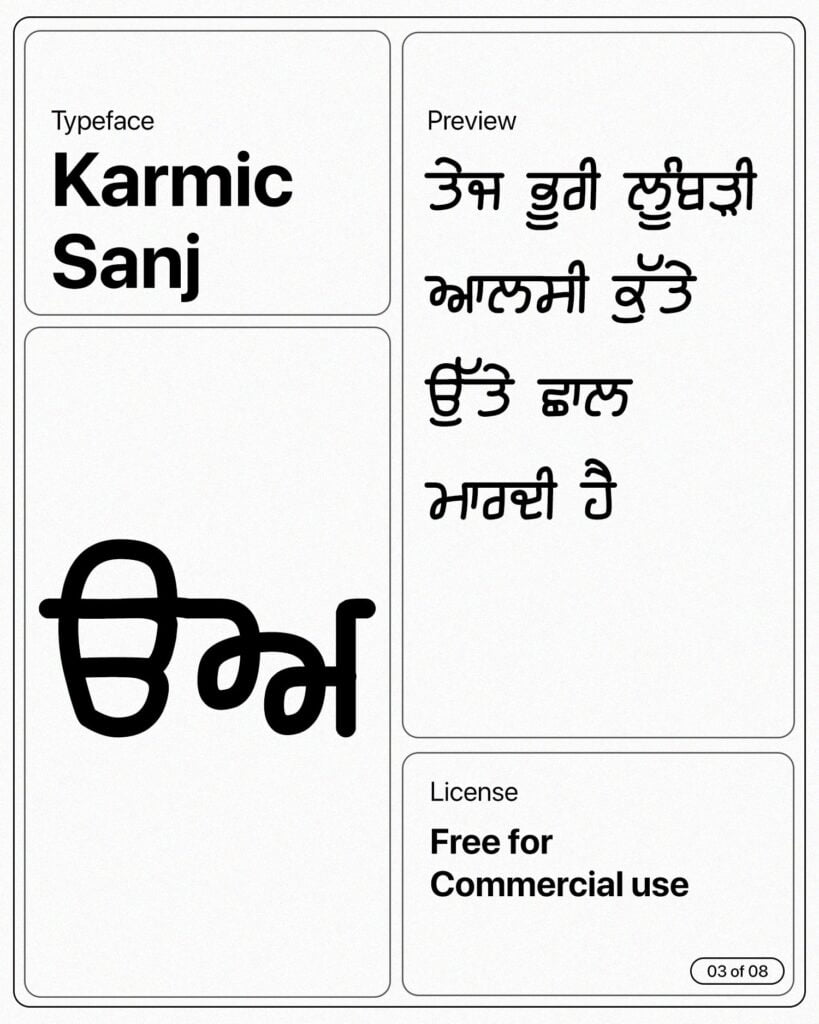
Karmic Sanj Punjabi Font
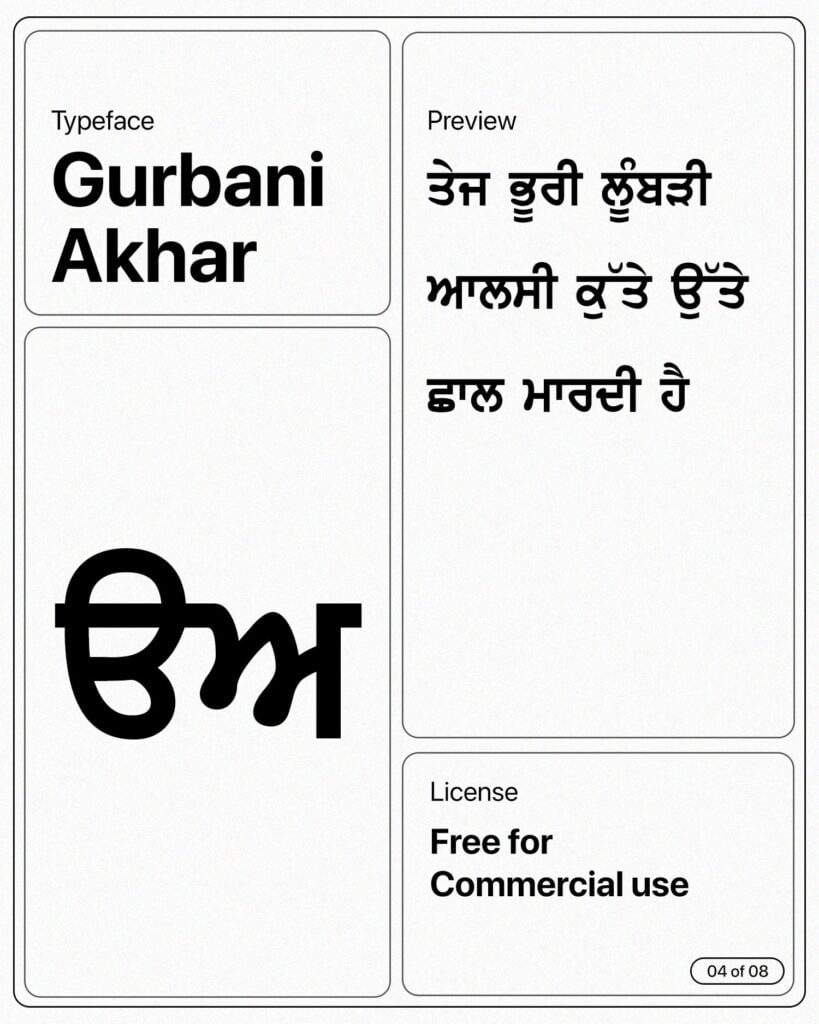
Gurbani Akhar Punjabi Font
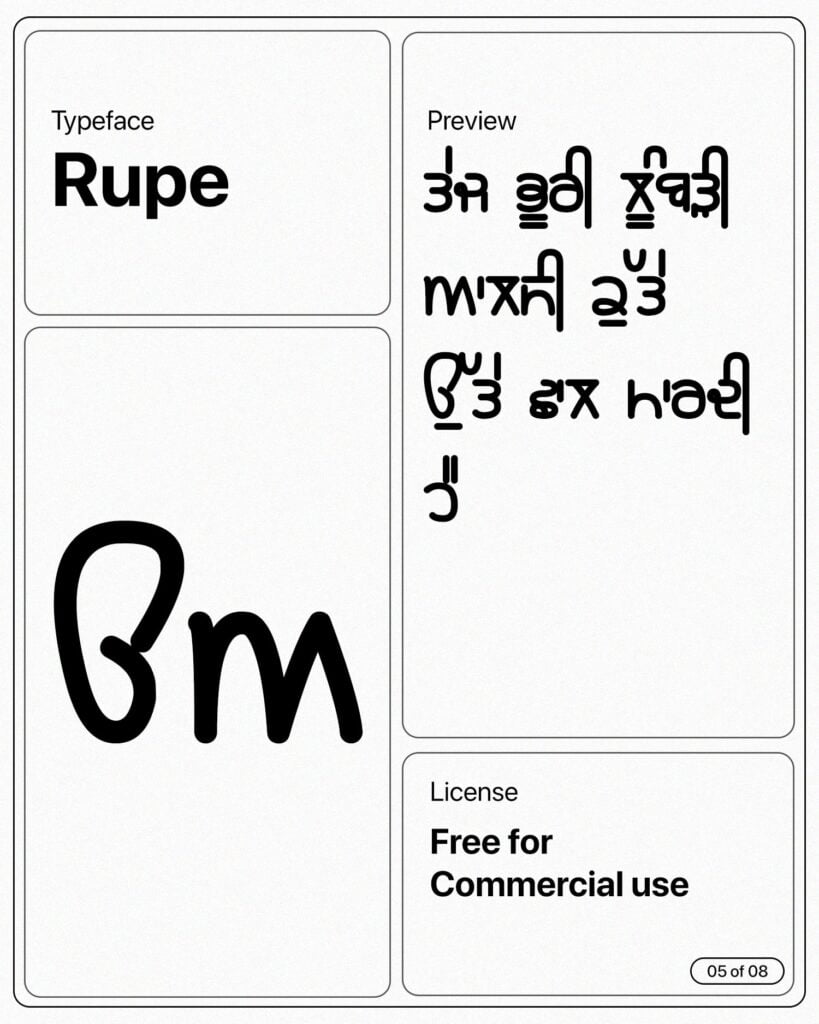
Rupe Punjabi Font
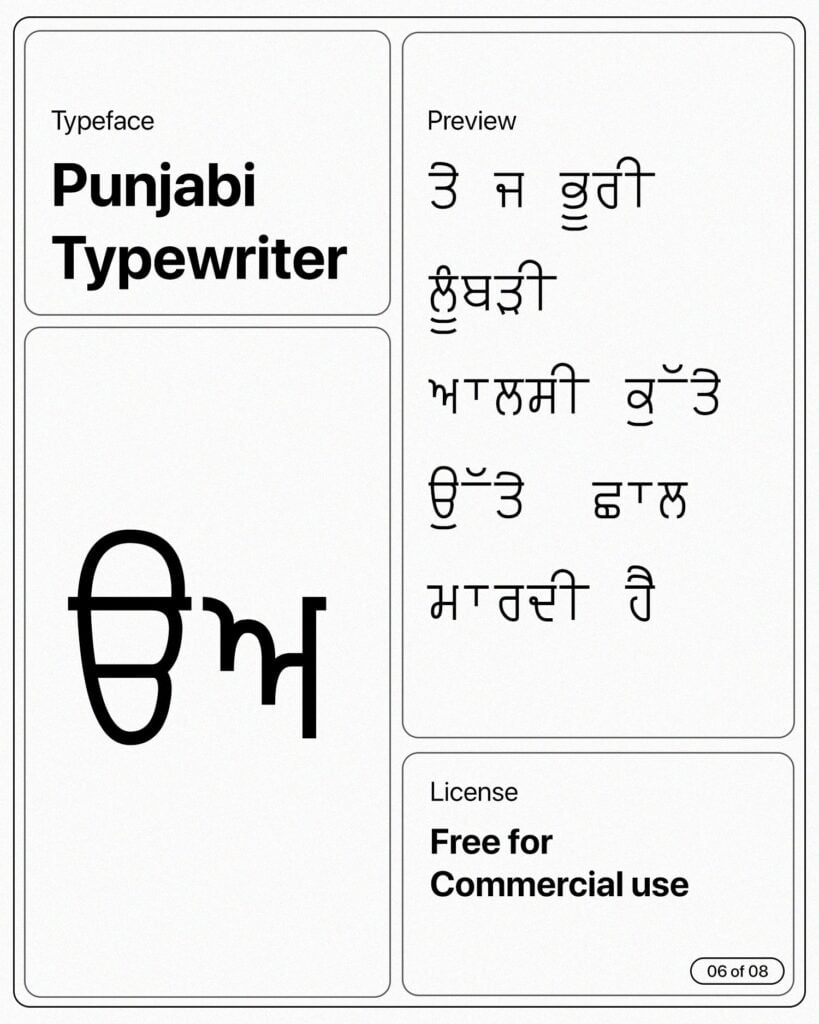
Punjabi Typewriter Font
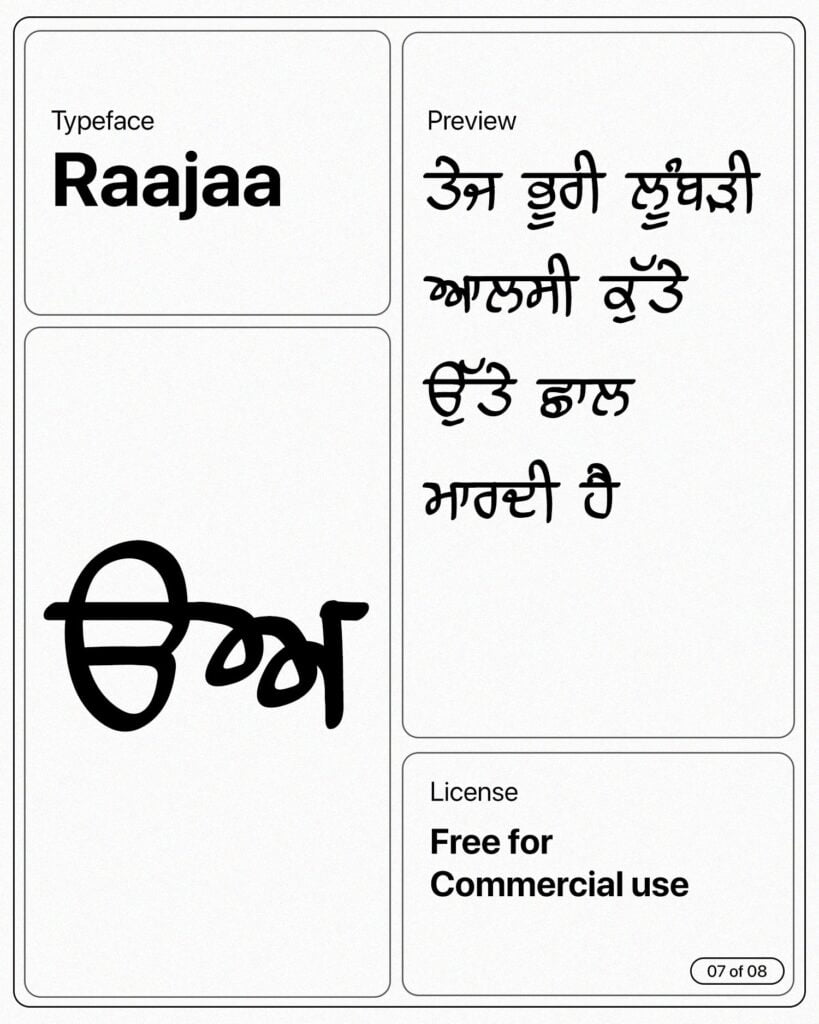
Raaja Punjabi Font
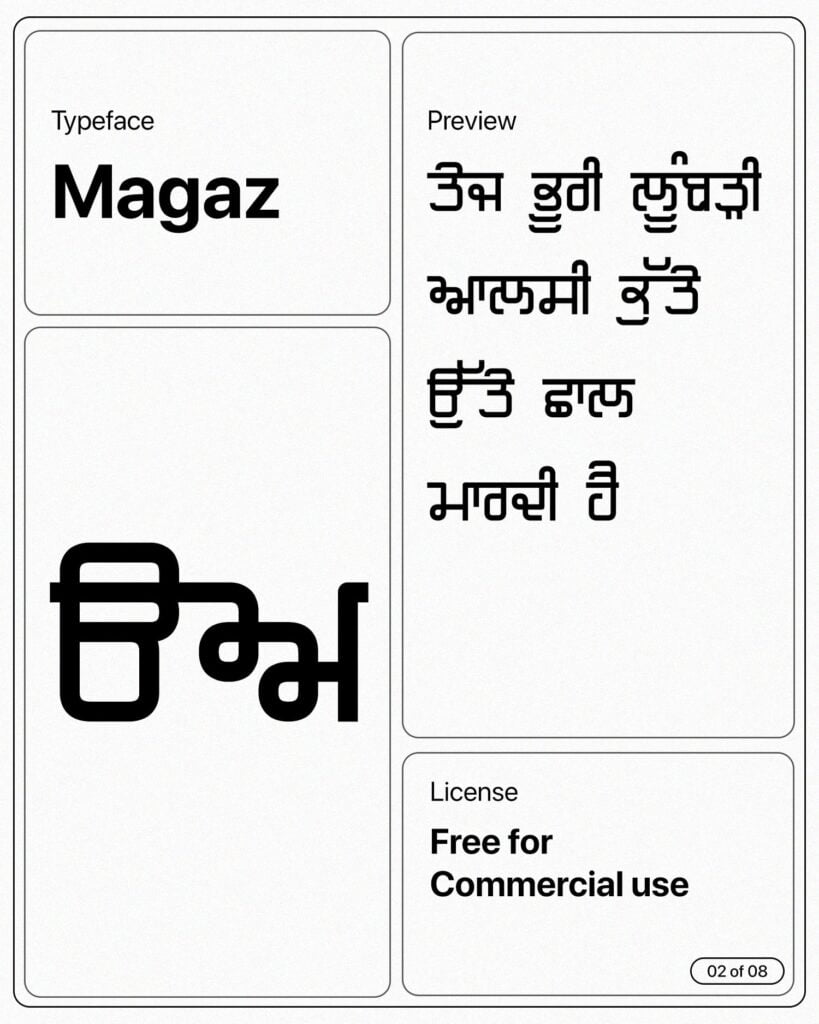
Magaz Punjabi Font
For those specifically searching for gurmukhi punjabi font download links, each of these fonts offers unique characteristics that cater to different design needs. From the elegant Karmic Sanj to the bold Raaja font, you’ll find plenty of options for creating stylish punjabi fonts text that stands out.